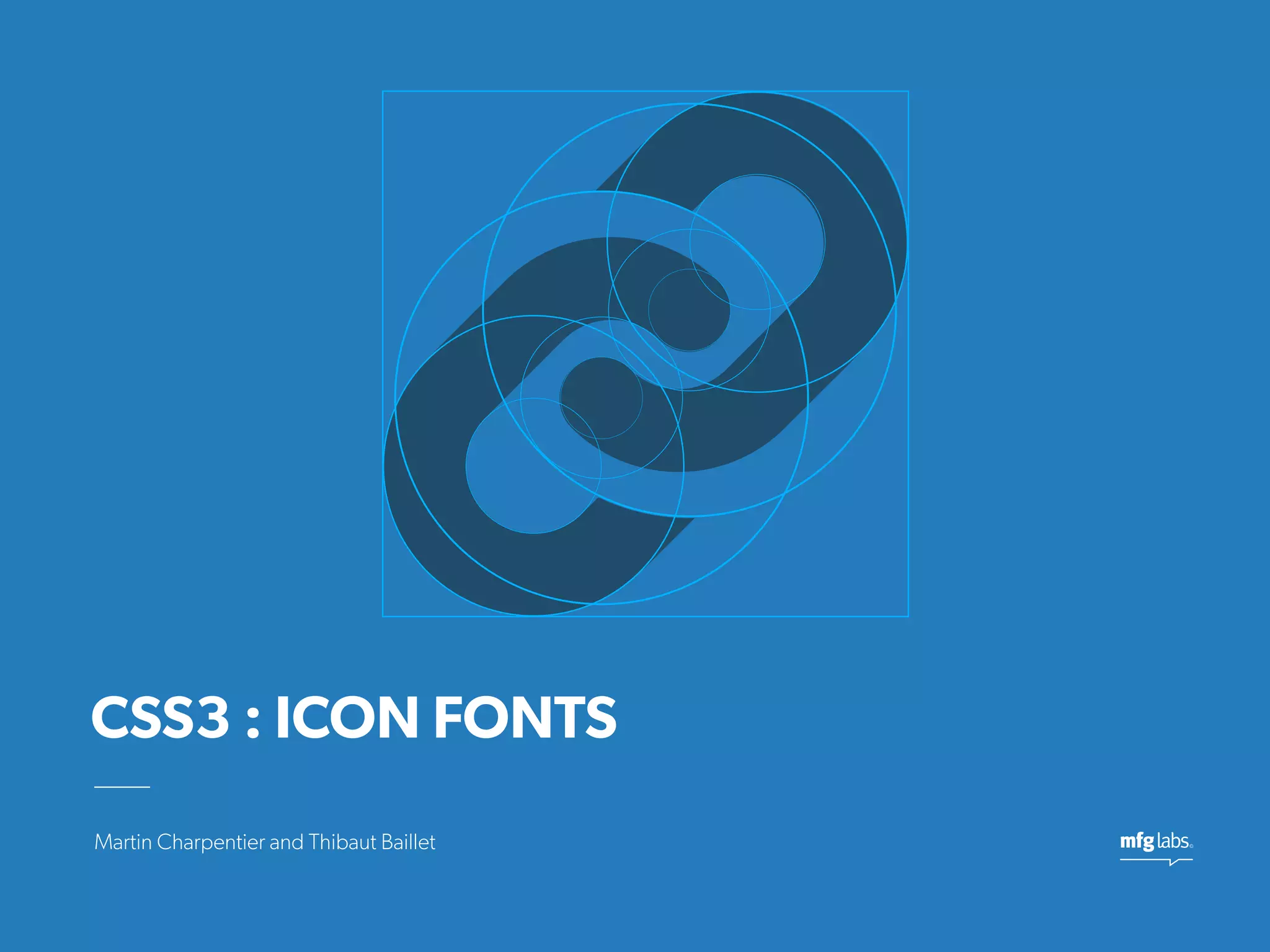
CSS3 : ICON FONTS
CREATION
Grid, guides and shapesTo maintain a unity from an icon to another, you must compel you to stick to some rules
Shapes and MathStrict compliance with mathematic rules is not a goal. But using simple shapes allow you to build icons with
harmony.
From.AI to .OTF
GLYPHS app
Glyphs
Copy / Paste
Ascender and Descender
Alignment
Unicode Assignment
UNICODE
Unicode : a standard for typeface
Thousand of unicodes dedicated to
shapes and symbols
(Arrows, Currency Symbols, Geometic Shapes, etc...)
Standardize the use of icons in font
Logical Assignment to Unicode
MFG Labs Icons Name Unicode
Pencil 0x1f4c5
Cloud 0x2601
Fallback
Anchor 0x2693
Private Use Area
It’s preferable to pick unicode from Private
Use Area rather than using a unicode which is
already assigned to a letter.
Range : E000 ... F8FF (6400 UNICODES)
HTML5 & CSS3
@font-face
Font Face Kit
Font face Kit
Generic Class
Implementation
CSS
HTML
Implementation
CSS
Fix IE7 & 8
HTML
Customization
1x 2x 3x
Customization
Retina Ready
Performance
Image sprite : 650kb
Yslow: 82
Google Speed Score : 90
TTF Font : 11kb
Yslow: 88
Google Speed Score : 96